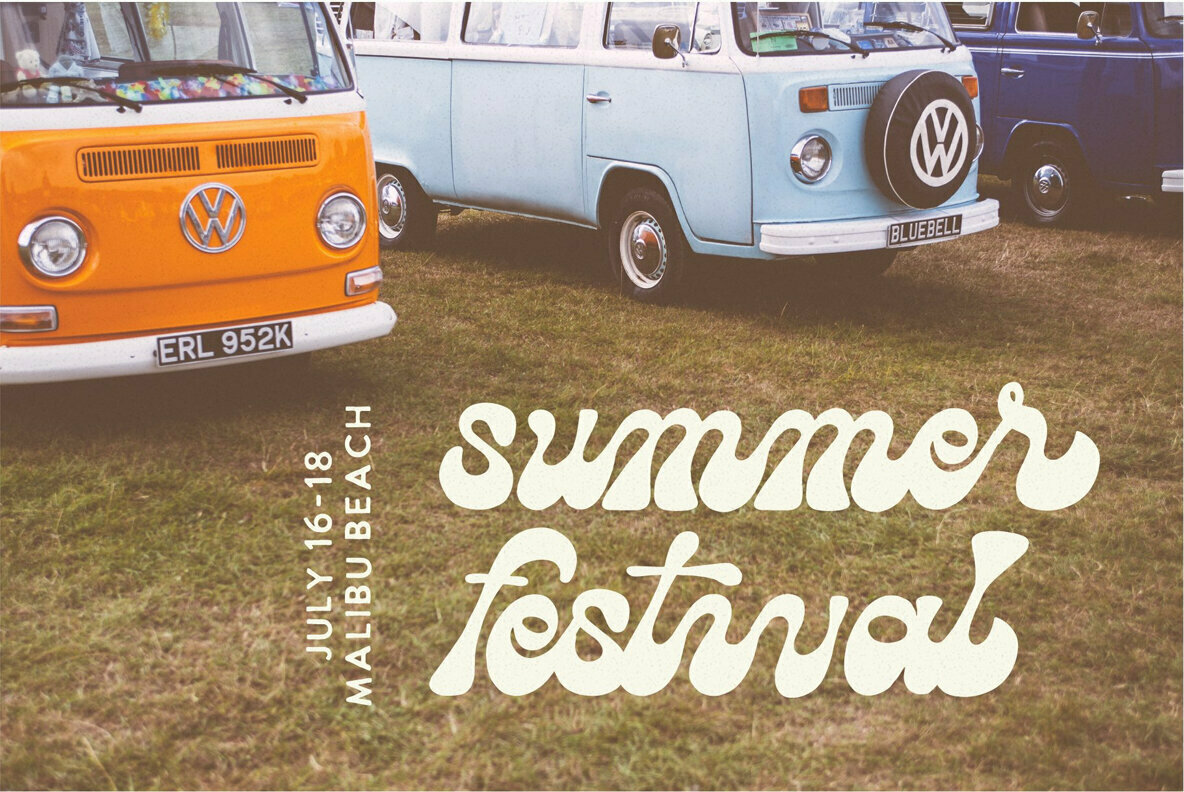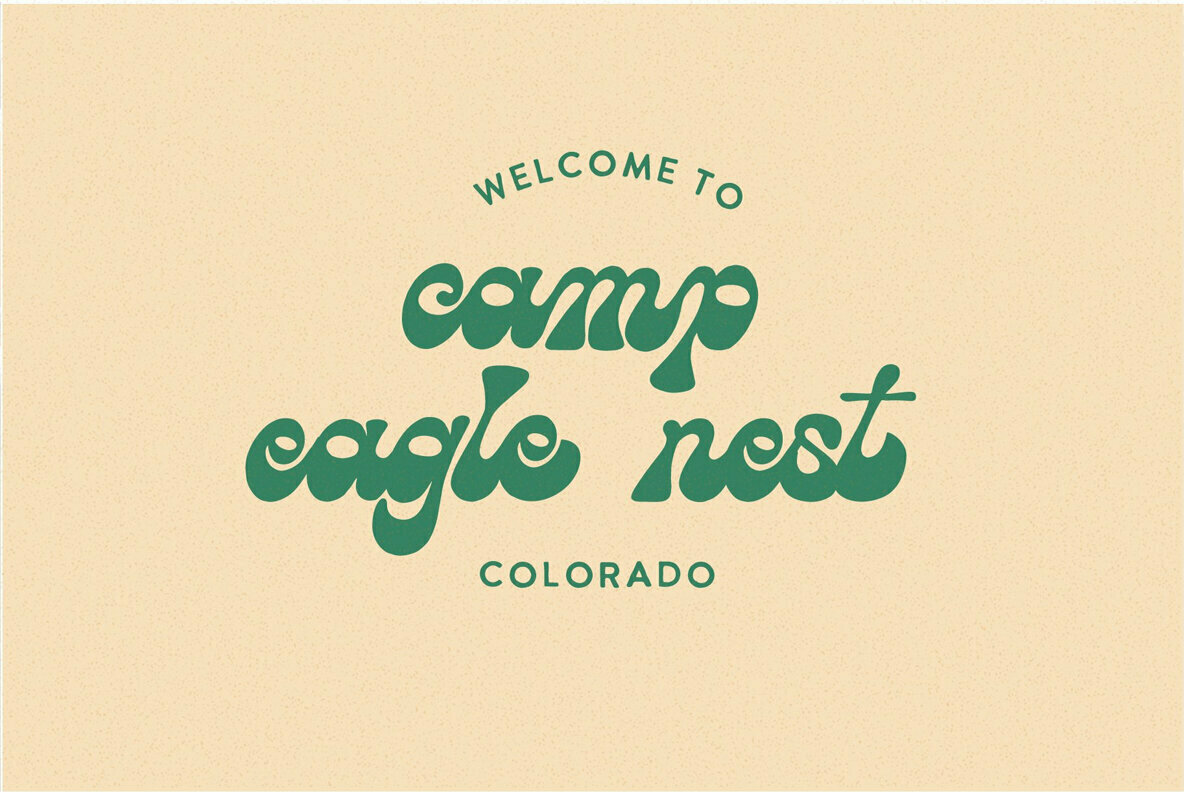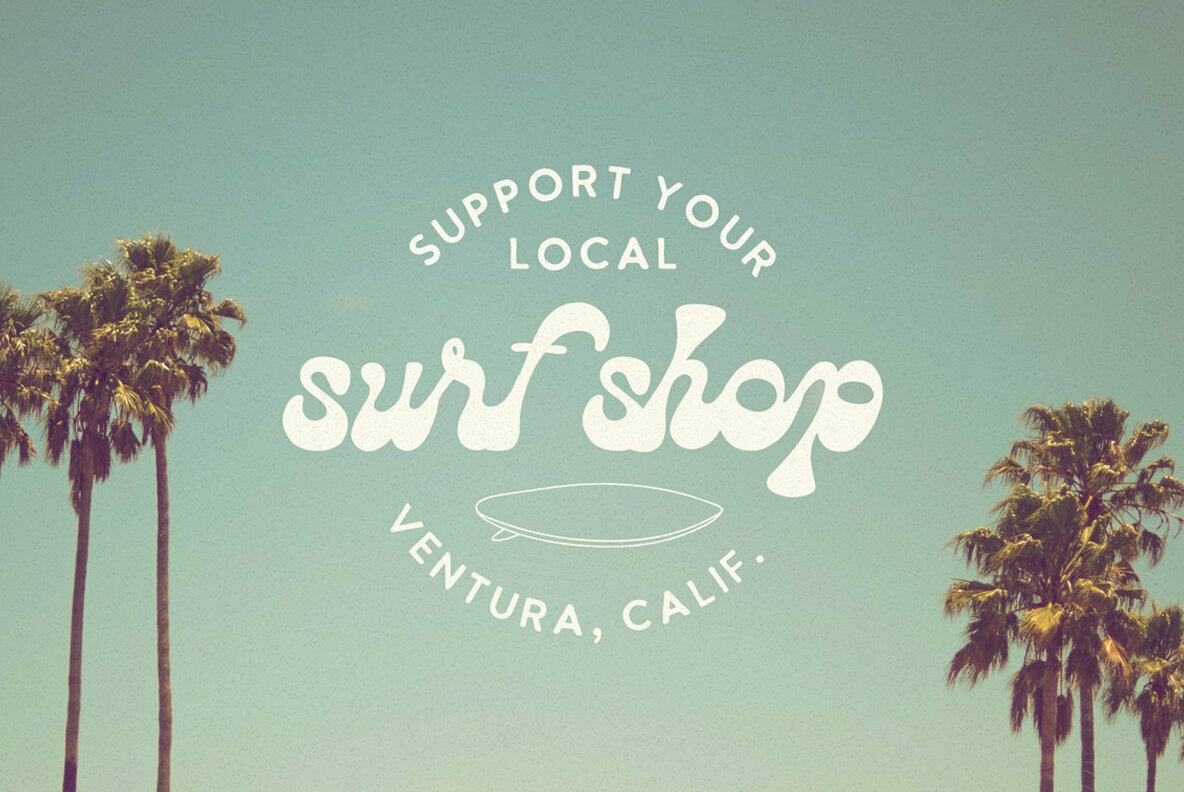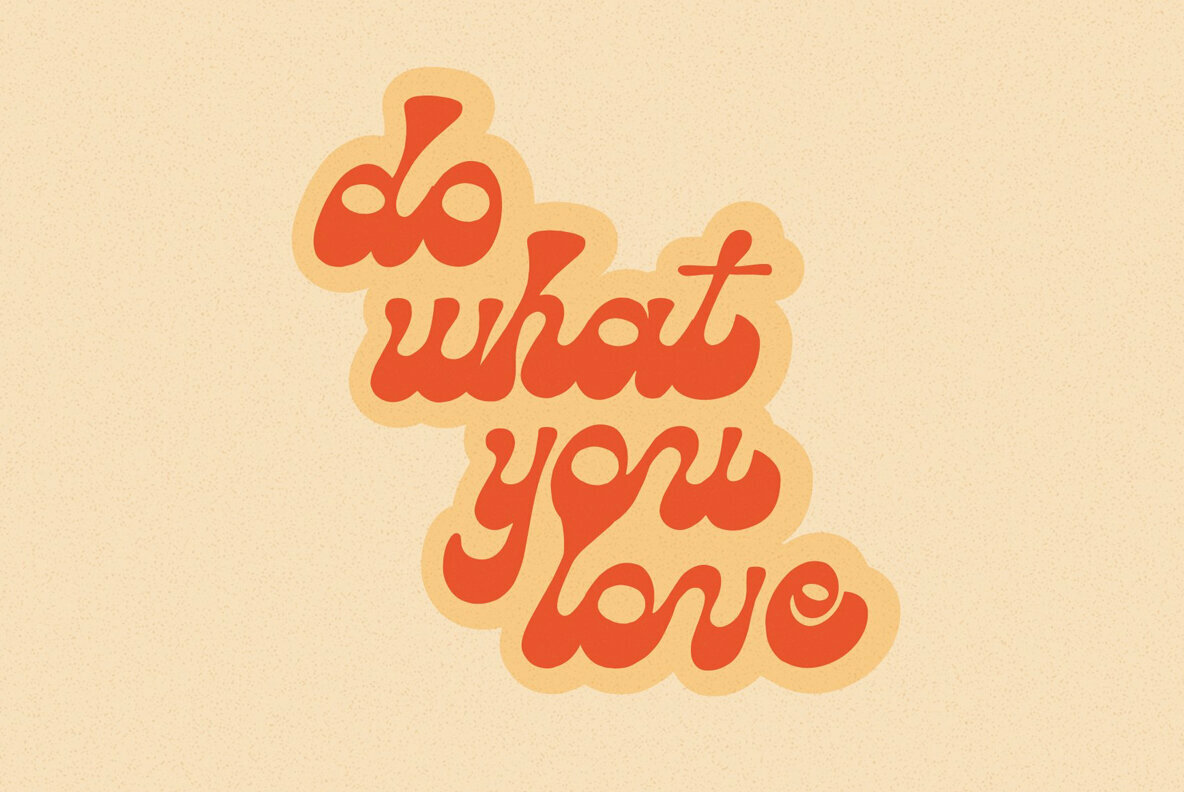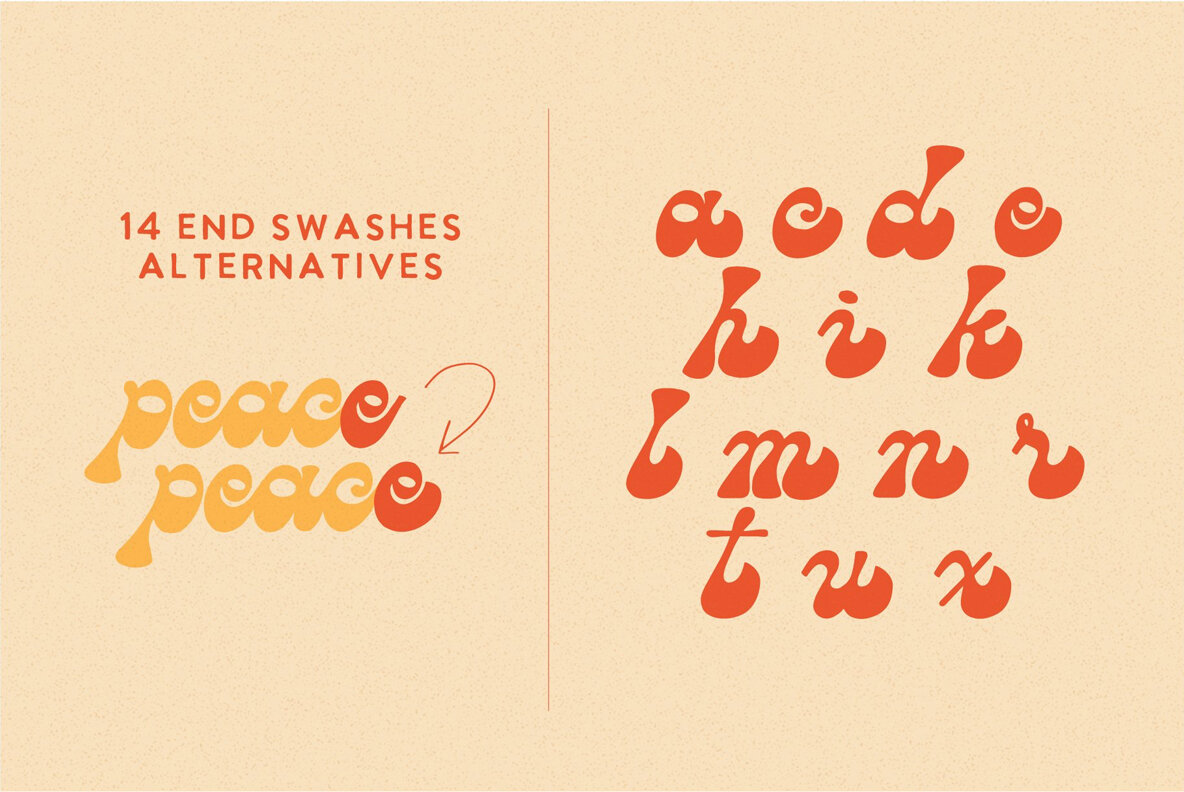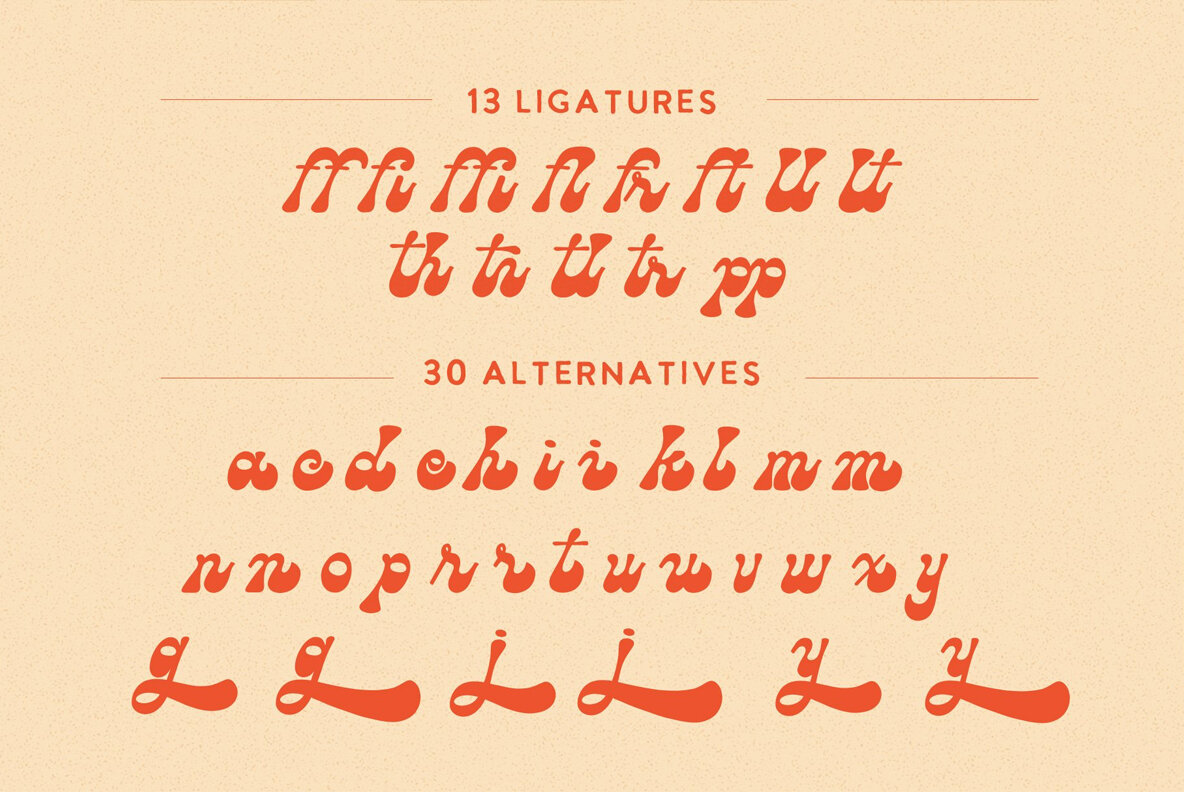
Daydreamer Font
Daydreamer
Daydreamer is a quirky, hand-drawn script. It has a playful and organic feel that works great for branding, social media, and marketing!